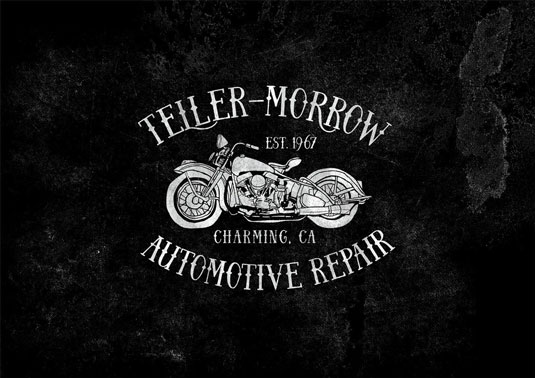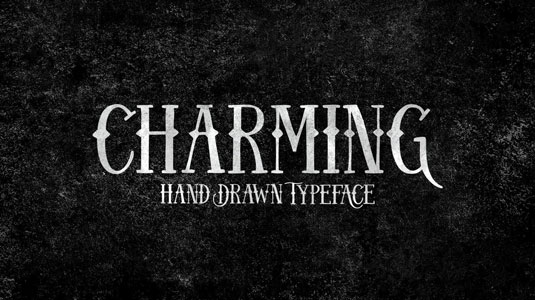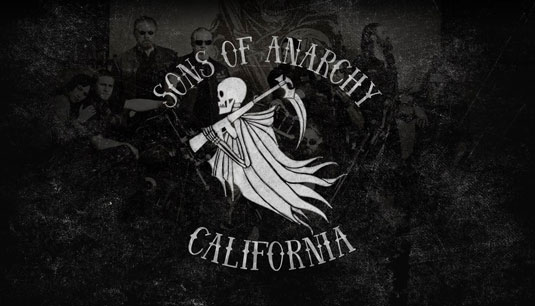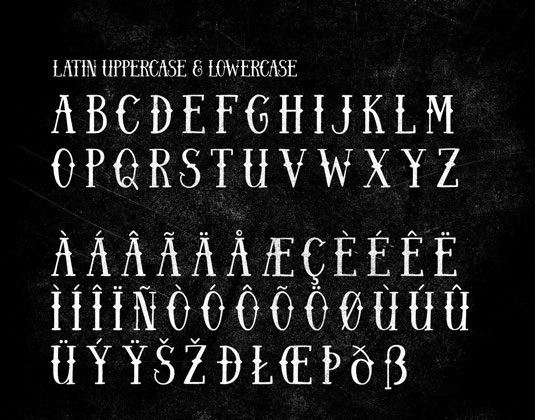
Font of the day: Charming
Each day of the week we showcase a new font – today it's Charming by Anastasia Dimitriadi, which is free to download.
Charming by Anastasia Dimitriadi
Kicking off our font of the days posts this week is designer Anastasia Dimitriadi with her latest creation, Charming. A hand drawn font inspired by vintage American and folk lettering, Charming is suitable for logos, signage design, ads, posters and lettering quotes.